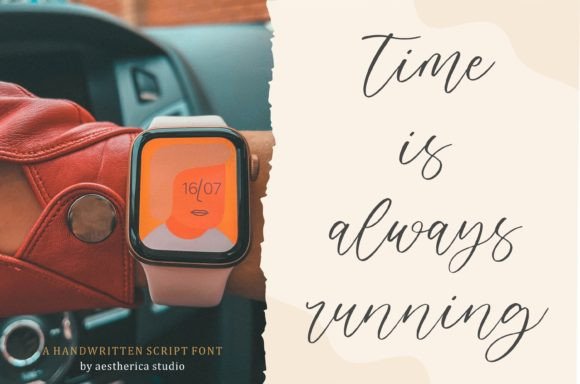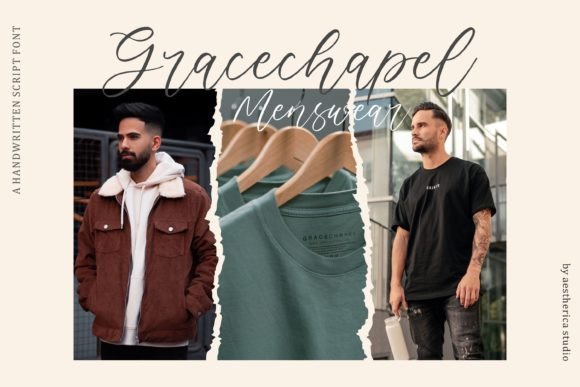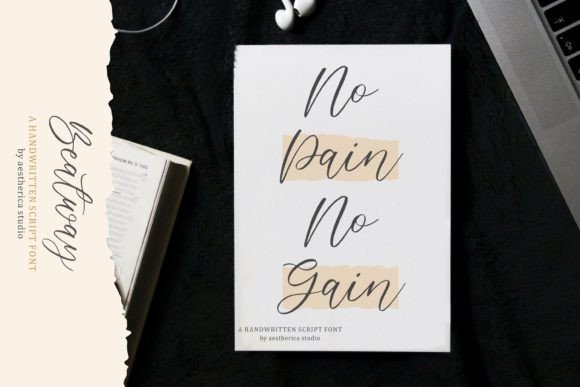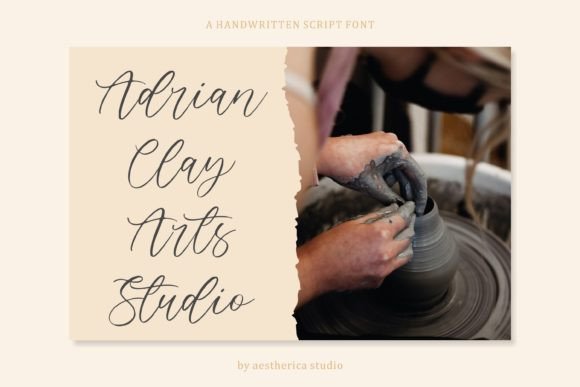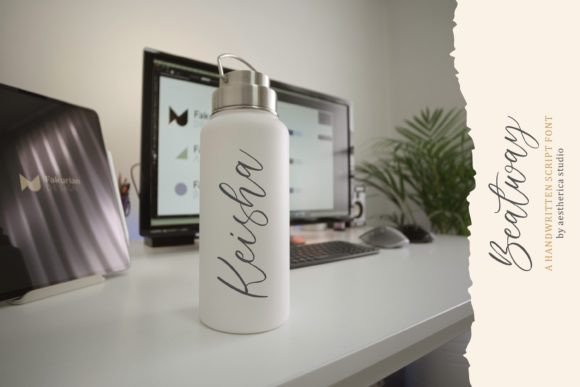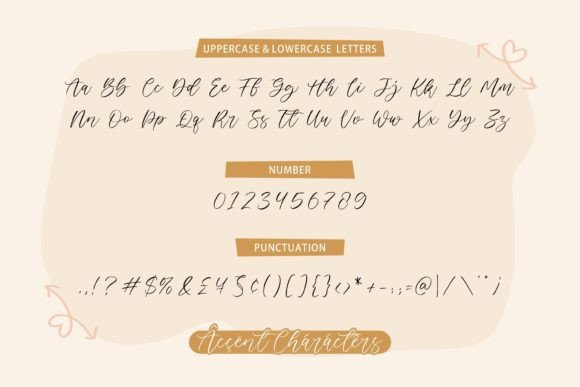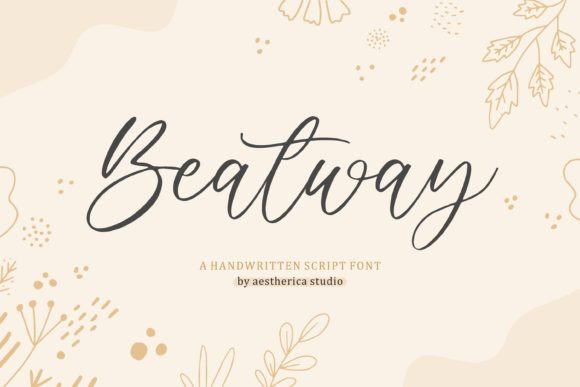
Introducing Beatway Font: Elevate Your Designs with a Touch of Handwritten Elegance
In the world of typography, fonts play a crucial role in conveying the tone and personality of a design. For creative projects that demand a personal touch, a handwritten script font can make all the difference. Meet Beatway Font, a beautifully crafted handwritten script font that brings a clear style and dramatic movement to your designs. In this article, we’ll explore the features and benefits of Beatway Font, and how it can elevate your next creative project.
What is Beatway Font?
Beatway Font is a stunning handwritten script font that exudes elegance and sophistication. Its clear style and dramatic movement make it perfect for a wide range of design applications. Whether you’re working on branding projects, logos, wedding designs, social media posts, advertisements, product packaging, or product designs, Beatway Font is the ideal choice.
Key Features of Beatway Font
- Handwritten Script Style: Beatway Font boasts a beautiful handwritten script style that adds a personal touch to your designs.
- Clear and Dramatic Movement: The font’s clear style and dramatic movement make it perfect for designs that require a sense of elegance and sophistication.
- Versatile: Beatway Font is suitable for a wide range of design applications, including branding projects, logos, wedding designs, social media posts, advertisements, product packaging, product designs, labels, photography, watermarks, invitations, stationery, and more.
- Easy to Read: Despite its dramatic movement, Beatway Font is easy to read, making it perfect for designs that require a balance of style and legibility.
Benefits of Using Beatway Font
So, why choose Beatway Font for your next creative project? Here are just a few benefits of using this stunning font:
- Adds a Personal Touch: Beatway Font’s handwritten script style adds a personal touch to your designs, making them more relatable and engaging.
- Enhances Brand Identity: With its clear style and dramatic movement, Beatway Font can help enhance your brand’s identity and make it more memorable.
- Perfect for Creative Projects: Whether you’re working on a branding project, logo, or social media post, Beatway Font is the perfect choice for creative projects that require a touch of elegance and sophistication.
- Easy to Use: Beatway Font is easy to use and can be easily integrated into your design workflow.
Design Applications for Beatway Font
Beatway Font is a versatile font that can be used in a wide range of design applications. Here are some ideas to get you started:
- Branding Projects: Use Beatway Font to create a unique and memorable brand identity.
- Logos: Create a stunning logo that showcases your brand’s personality and style.
- Wedding Designs: Add a touch of elegance and sophistication to your wedding designs, including invitations, stationery, and more.
- Social Media Posts: Use Beatway Font to create eye-catching social media posts that stand out from the crowd.
- Advertisements: Create effective advertisements that grab attention and convey your message with clarity.
- Product Packaging: Add a personal touch to your product packaging and make it more memorable.
- Product Designs: Use Beatway Font to create stunning product designs that showcase your brand’s style and personality.
| Author | Aestherica Studio |